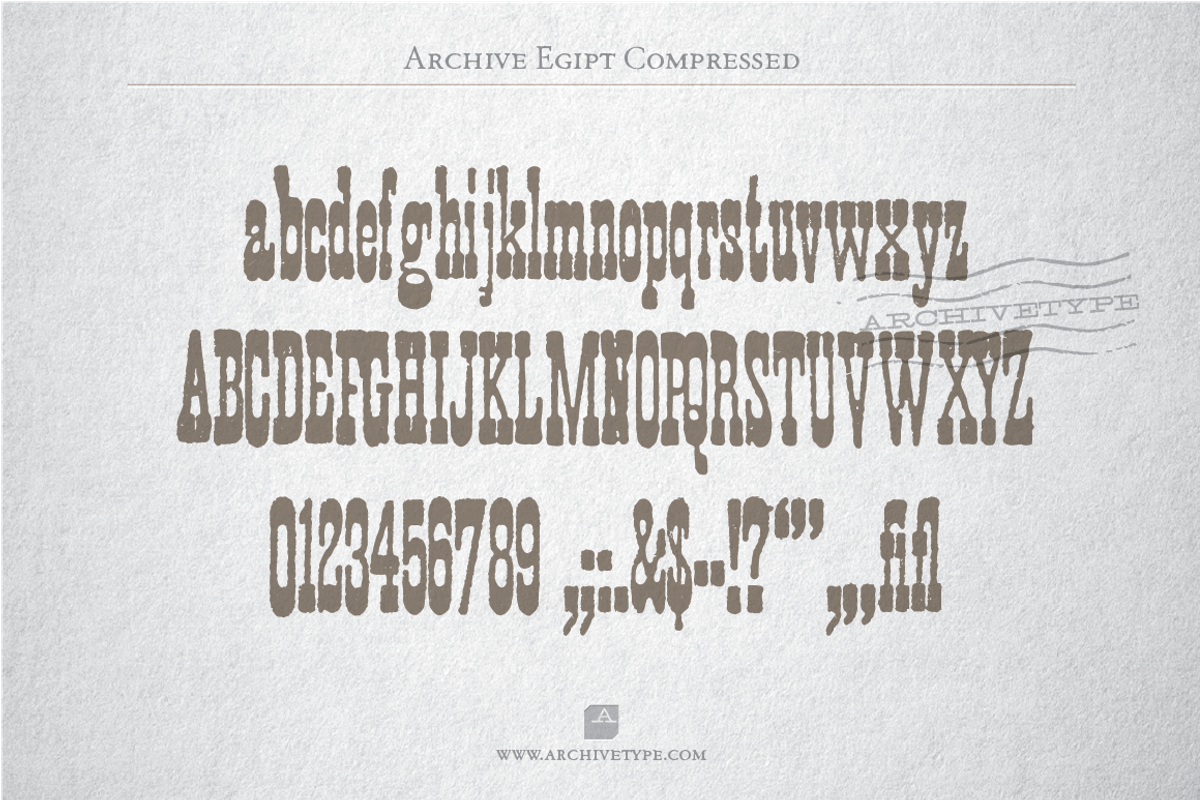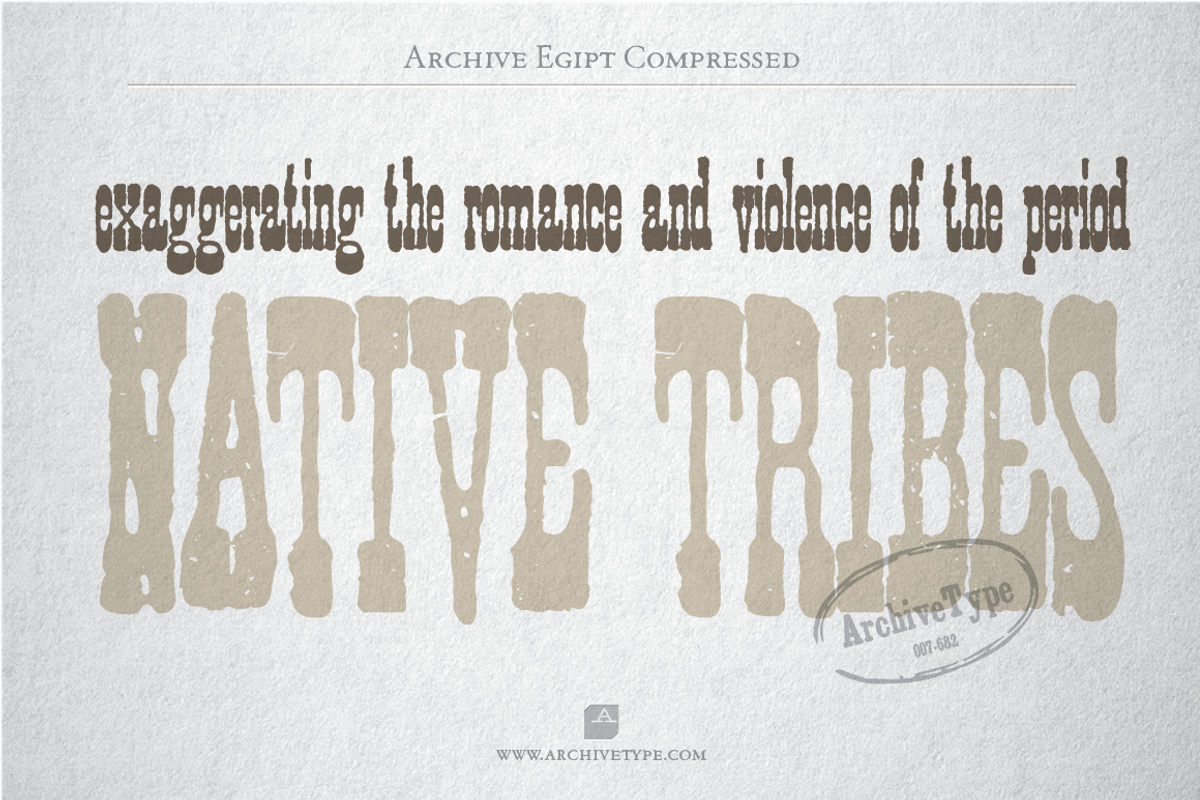
Archive Egipt Compressed
Archive Egipt Compressed by Archive Type Fonts is a font selected for branding, posters, packaging, typography.
- In order to preserve the original feel of typefaces, no additional characters were added to originals, therefore, most of the fonts consist
- Upper case letters, lower case letters, numerals and basic punctuation.
Why Archive Egipt Compressed is worth a look
Archive Egipt Compressed by Archive Type Fonts fits naturally into Branding, posters, packaging, typography.